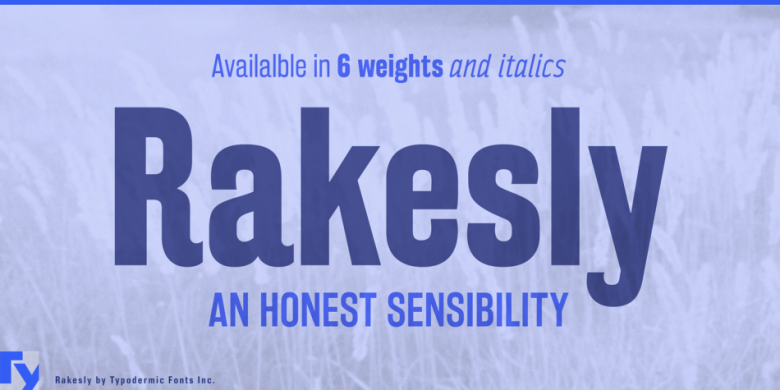
Rakesly Font Family
Good news! We would like to introduce you to a new font family, with 6 weights and 12 fonts. Please download and enjoy it quickly, it will fit all your design. Introducing Rakesly Font Family! Rakesly Font was designed and shared by Typodermic. Rakesly was inspired by grotesque headliners from the 19th century. Rakesly includes 6 weights plus italics and comes with a free commercial use desktop license.